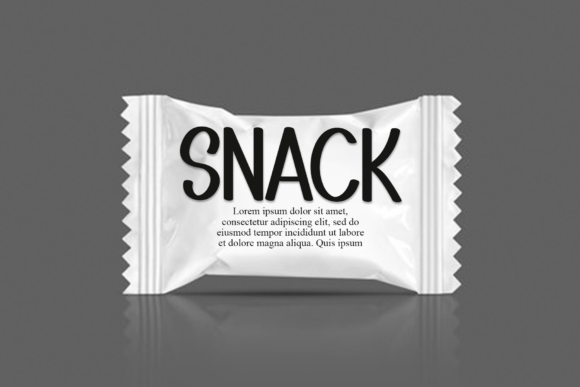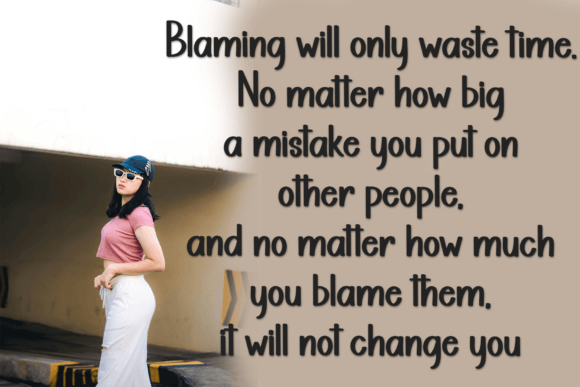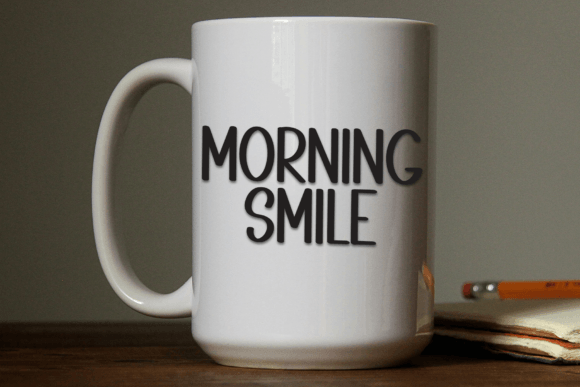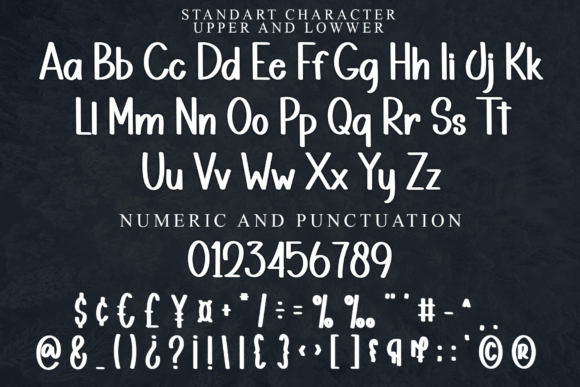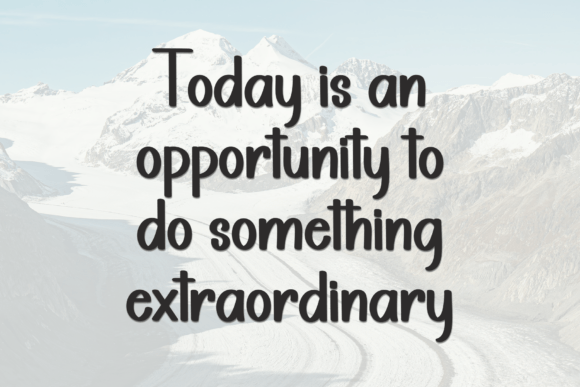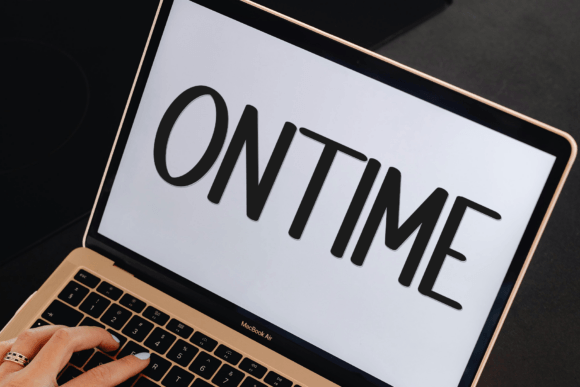
Introducing First Snow Font: The Perfect Winter Companion for Designers and Crafters
As the winter season approaches, designers and crafters are on the lookout for the perfect font to capture the magic and charm of snowflakes gently falling on their projects. Look no further than the First Snow Font, a playful handwritten font that embodies the fun and coziness of freshly fallen snow. In this article, we’ll dive into the world of First Snow Font, exploring its features, benefits, and uses, as well as provide tips on how to make the most of this delightful font.
What is First Snow Font?
FIRST SNOW is a modern, handwritten font that is sure to bring a smile to your face. Its soft, casual style is reminiscent of snowflakes gently falling on a winter’s night, making it the perfect addition to any winter-themed design. Whether you’re working on a festive holiday card, a cozy winter-themed invitation, or a snowy landscape illustration, First Snow Font is sure to add a personal and charming touch to your project.
Key Features of First Snow Font
- Playful and Handwritten: First Snow Font boasts a playful, handwritten style that is sure to capture the whimsy and charm of the winter season.
- Soft and Casual: The font’s soft, casual style makes it perfect for winter-themed designs, adding a cozy and inviting touch to your projects.
- Versatile: First Snow Font is a versatile font that can be used for a wide range of projects, from holiday cards and invitations to illustrations and more.
- Easy to Read: The font is clear and easy to read, making it perfect for use in both digital and print projects.
Benefits of Using First Snow Font
So why choose First Snow Font for your winter-themed designs? Here are just a few benefits of using this delightful font:
- Adds a Personal Touch: First Snow Font adds a personal and charming touch to your projects, making them stand out from the crowd.
- Evokes Winter Wonder: The font’s playful, snowy style is sure to evoke the magic and wonder of the winter season, making it perfect for holiday-themed designs.
- Easy to Pair: First Snow Font pairs well with a wide range of other fonts, making it easy to mix and match to create the perfect look for your project.
Using First Snow Font in Your Designs
So how can you use First Snow Font in your designs? Here are a few ideas to get you started:
- Holiday Cards and Invitations: Use First Snow Font to create festive holiday cards and invitations that are sure to delight your friends and family.
- Winter-Themed Illustrations: Add a touch of whimsy and charm to your winter-themed illustrations with First Snow Font.
- Social Media Graphics: Use First Snow Font to create eye-catching social media graphics that are sure to stand out from the crowd.
Tips and Tricks for Getting the Most Out of First Snow Font
Here are a few tips and tricks for getting the most out of First Snow Font:
- Experiment with Font Sizes: Don’t be afraid to experiment with different font sizes to create visual interest and hierarchy in your designs.
- Pair with Other Fonts: Try pairing First Snow Font with other fonts to create a unique and eye-catching look.
- Use in Combination with Winter-Themed Elements: Use First Snow Font in combination with winter-themed elements, such as snowflakes and holly, to create a cohesive and festive look.
In conclusion, First Snow Font is a playful and charming handwritten font that is perfect for winter-themed designs. Its soft, casual style and whimsical charm make it a must-have for designers and crafters looking to add a personal touch to their projects. Whether you’re working on a holiday card, invitation, or illustration, First Snow Font is sure to bring a smile to your face and a touch of winter wonder to your designs.